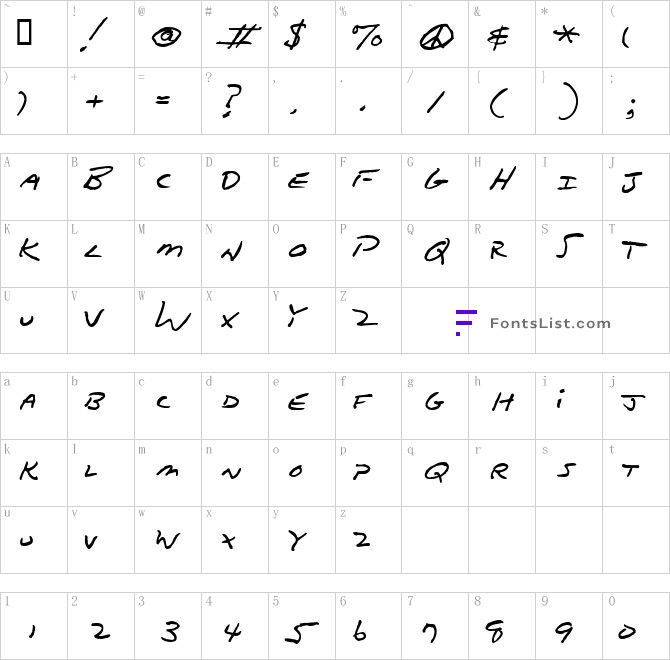
- Font Name:Dad's Recipe
Dad-s-Recipe.ttf is a very beautiful artistic font, Dad-s-Recipe.ttf is widely used in the design and printing of various books and pictures,Dad-s-Recipe.ttf has a strong visual impact,Dad-s-Recipe.ttf is a commonly used font in newspapers, magazines and books, and is used in posters, e-commerce Poster design, store design, logo design, font design and other fields.Dad-s-Recipe.